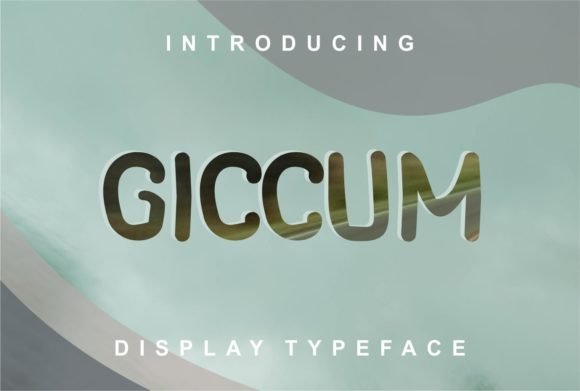
Unlocking the Power of Giccum Font: Elevate Your Designs to New Heights
There’s something magical about the moment when a design comes together – the perfect balance of color, texture, and typography. It’s a feeling that’s hard to describe, but it’s the reason why designers spend hours, even days, perfecting their craft. And at the heart of every great design is a font that truly makes it pop. That’s where Giccum Font comes in – a clean and adaptable display font that’s designed to take your posters, flyers, and prints to the next level.
Whether you’re a seasoned pro or just starting out, Giccum Font is an invaluable tool in your design arsenal. Its versatility and stylish aesthetic make it the perfect choice for any project, from bold headlines to subtle background textures. By incorporating Giccum Font into your designs, you’ll be able to unlock endless possibilities and create truly show-stopping pieces that leave a lasting impression.
Giccum Font Key Features
- Font Family: Giccum Font is a sans-serif font family.
- Unique Characteristics: Giccum Font features a distinctive geometric shape and a clean, modern aesthetic, making it ideal for digital and print applications.
Giccum Font Review
Overall, I’m impressed with the Giccum font. It’s a unique, modern sans-serif that’s sure to catch attention. ✨ Here are some of its standout features:
- Highly customizable: The font offers a range of weights and styles, allowing designers to tailor it to their specific needs.
- Unique aesthetic: Giccum’s irregular shapes and lines give it a distinctive look that sets it apart from more traditional sans-serifs.
- Legibility: Despite its unconventional design, Giccum remains easy to read, even at smaller font sizes.
- Not ideal for small text: While Giccum is legible, it may not be the best choice for body text in smaller sizes, as its irregular shapes can make it difficult to read.
- May require additional styling: Depending on the context, you may need to add additional styling elements to make Giccum work effectively.
- Not suitable for all audiences: Giccum’s unique design may not be to everyone’s taste, and some viewers may find it difficult to read or distracting.
In conclusion, Giccum is a bold, modern font that’s perfect for making a statement. With its high level of customization and unique aesthetic, it’s sure to be a hit with designers who want to add some personality to their projects. However, it may not be the best choice for every project, and designers should carefully consider its limitations before using it.
The Giccum Font is ideal for creative projects, such as:
- Graphic design and digital art
- Print design and typography
For optimal results, use the Giccum Font with bold and playful text styles, and pair it with bright and contrasting colors.
Alternatives to Giccum Font for Designers
Monserrat Font is a sans-serif font designed by Julieta Ulanovsky. It is perfect for modern and sleek designs, especially for titles and headings. Montserrat is more geometric and clean compared to Giccum Font, making it ideal for minimalist designs. It has a wider range of font sizes and styles, allowing for more flexibility in design.
Comparison: Montserrat Font is more modern and clean compared to Giccum Font, which has a more vintage feel.
Open Sans Font is a clean and modern sans-serif font designed by Steve Matteson. It is suitable for a wide range of designs, from corporate to editorial. Open Sans Font is more legible and readable compared to Giccum Font, making it ideal for body text and paragraphs. It is also highly customizable, allowing for easy adjustments to font size and style.
Q: Can I customize Giccum Font for my specific design needs?